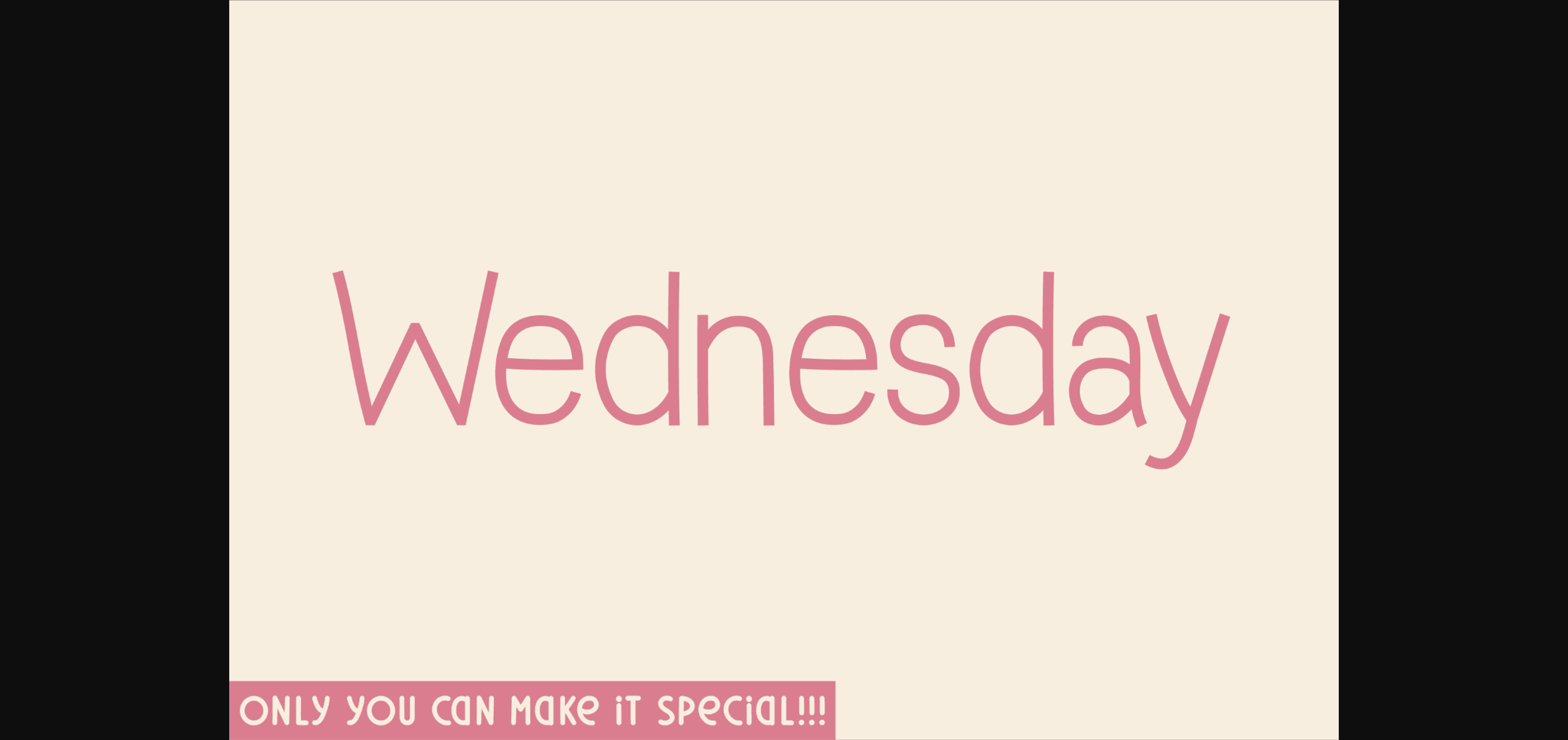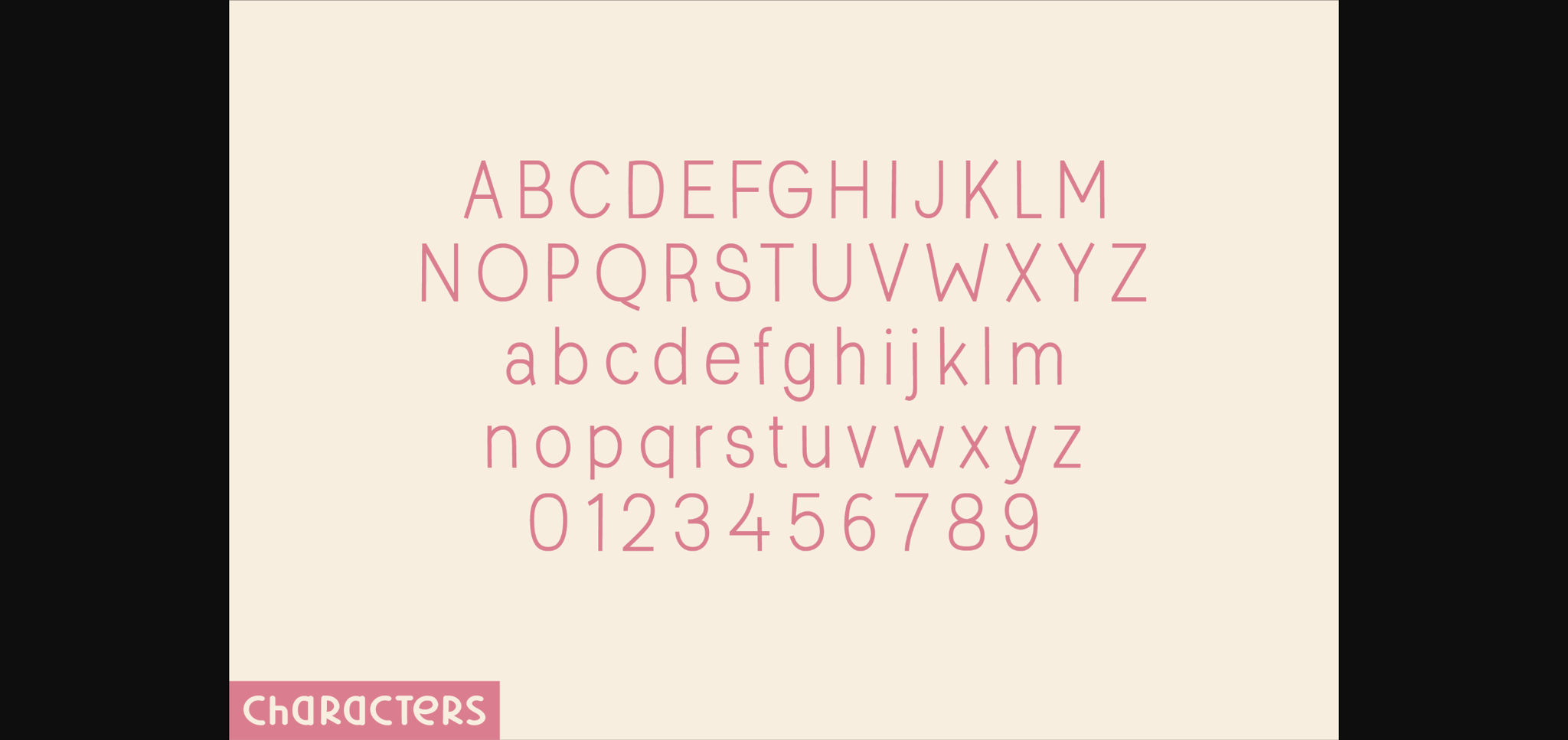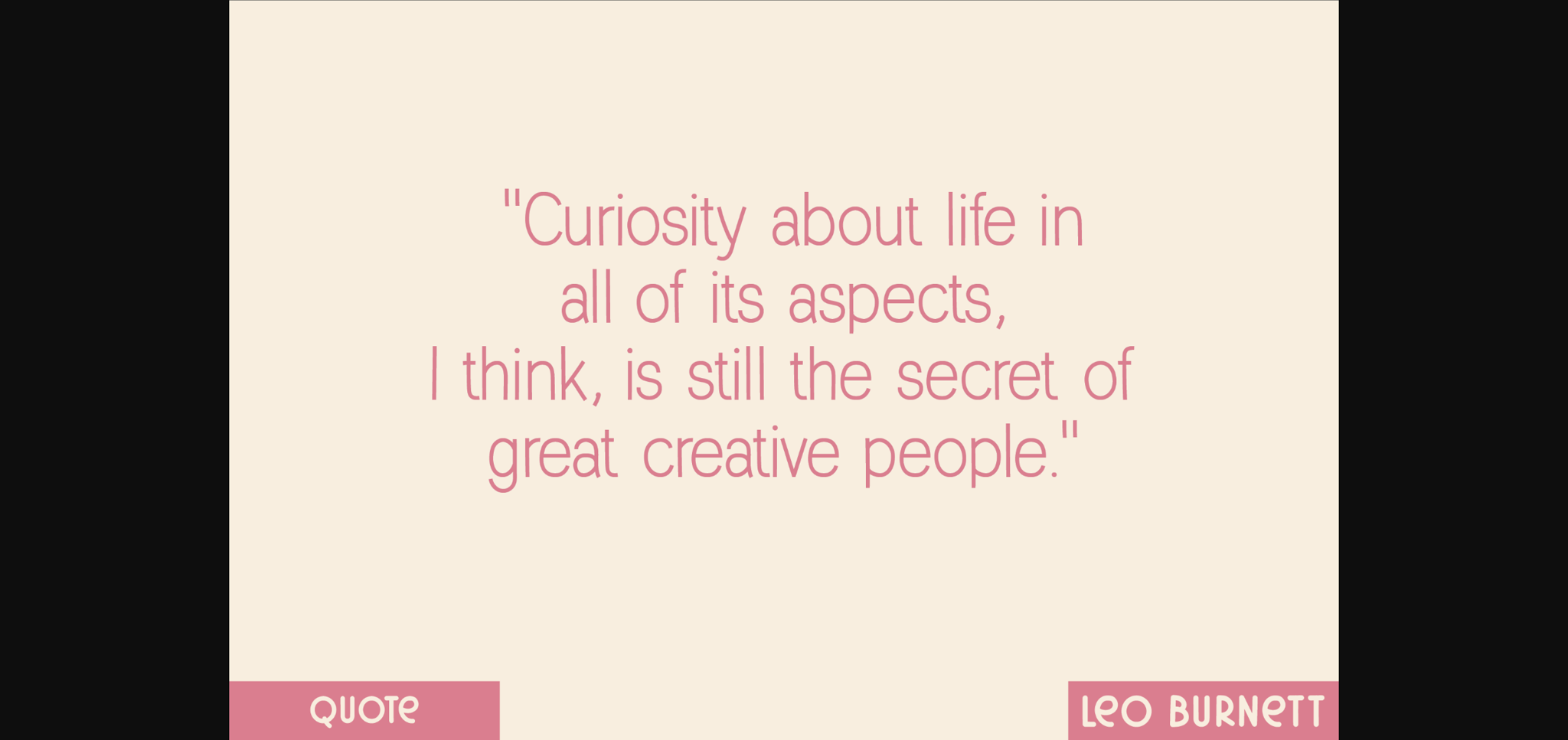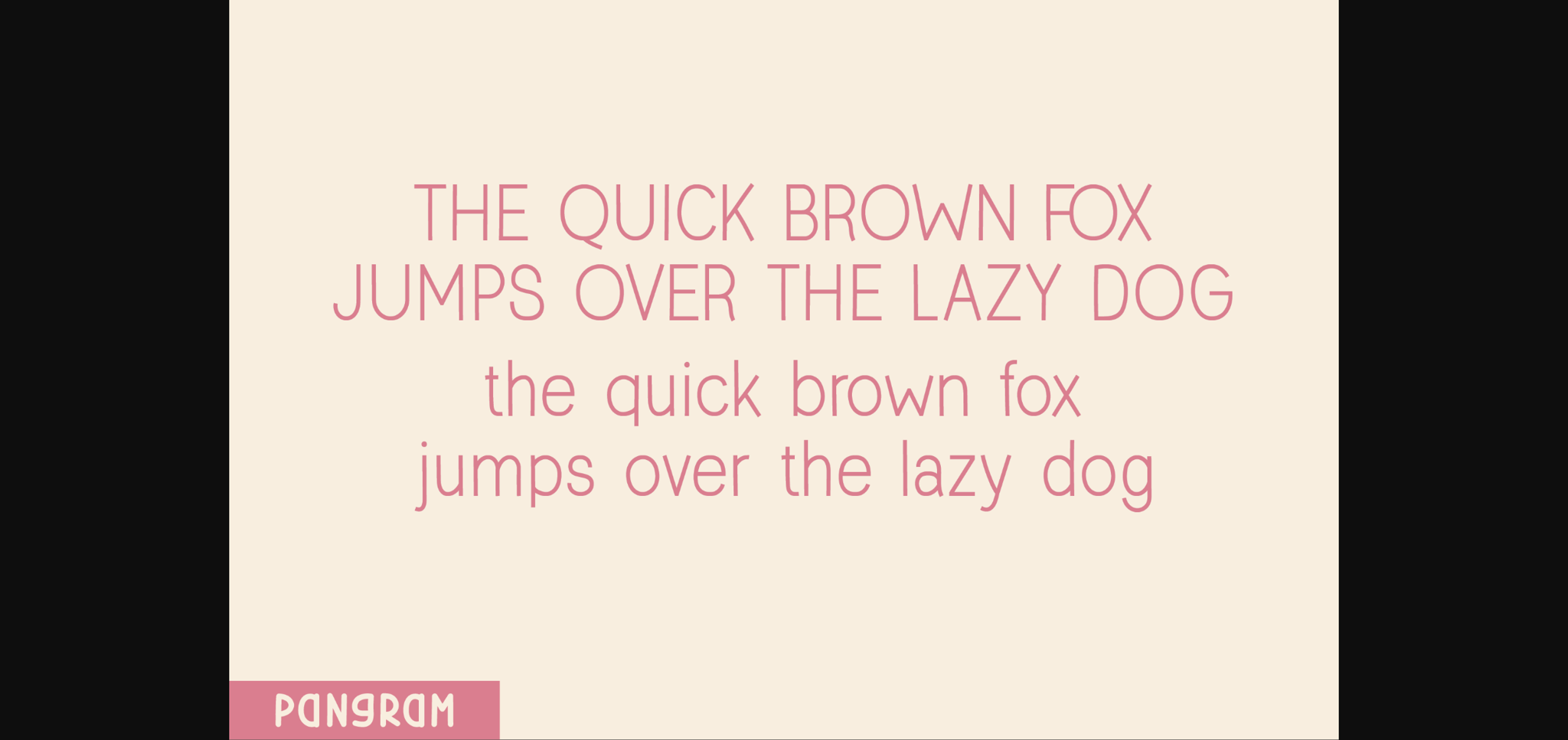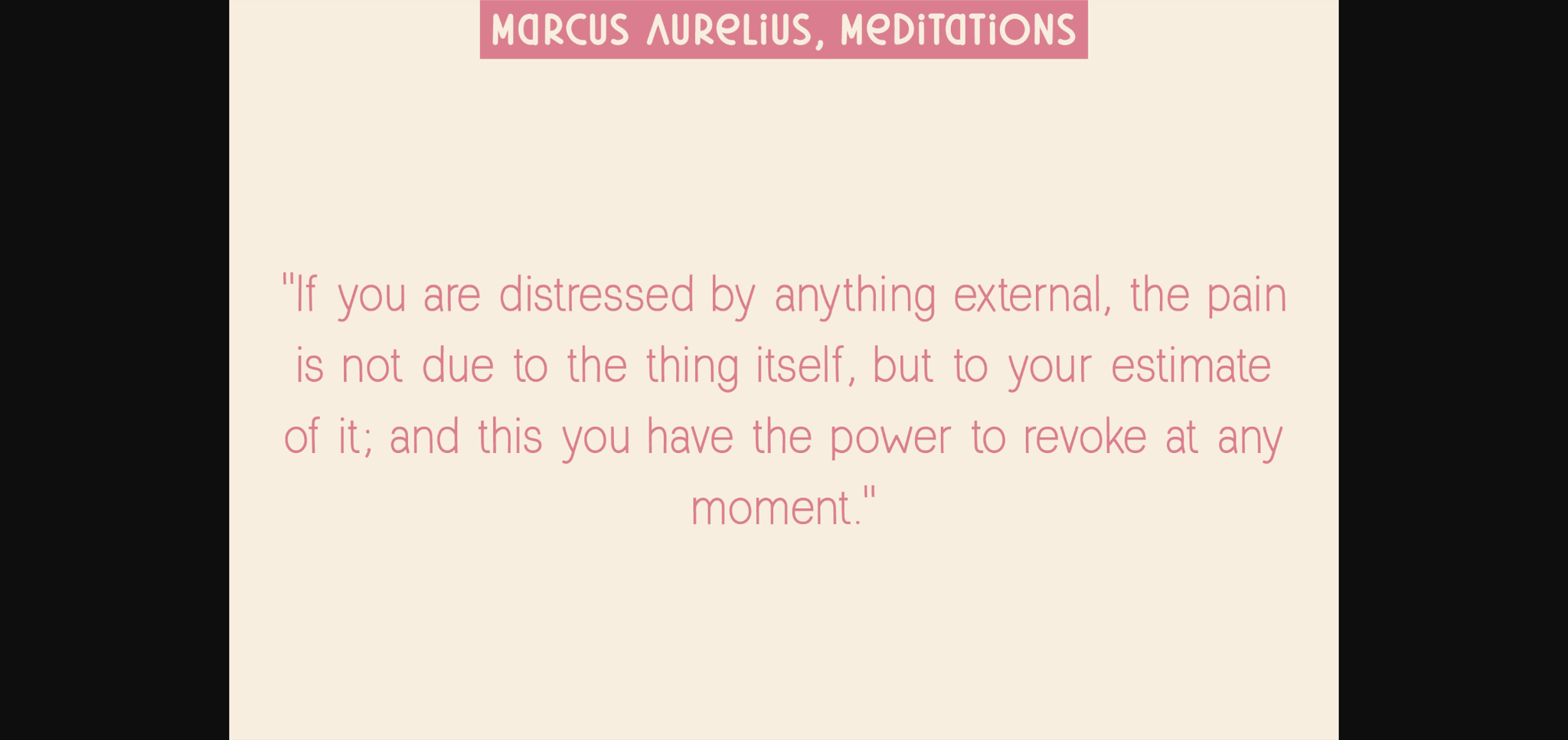
Wednesday Font
About Wednesday Font
Introducing Wednesday, a meticulously crafted sans serif font that resonates with nuance and versatility. This handwritten font features both uppercase and lowercase letters, alongside functional numerals, presenting an ample set for diverse creative prospects. Each letter silhouette boasts a customary finish, bestowing a delightful yet assertive ambiance. If it’s pronounced uniqueness you’re seeking in enriching your design project, then Wednesday is your perfect typographic companion, it embodies exclusivity, ensuring your design’s innovation stands out.